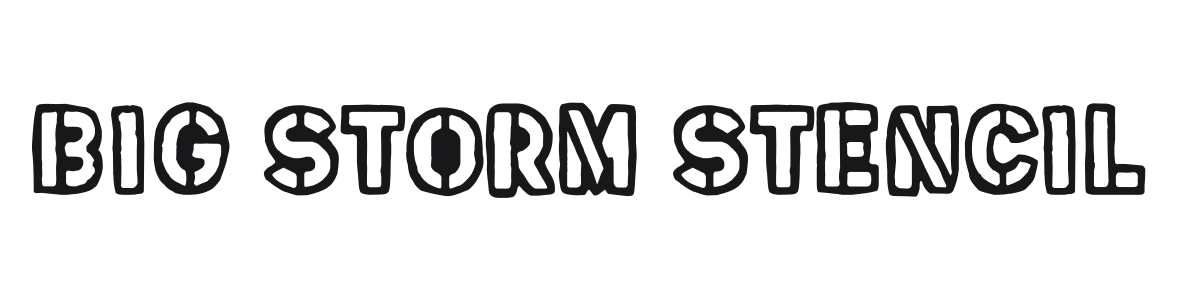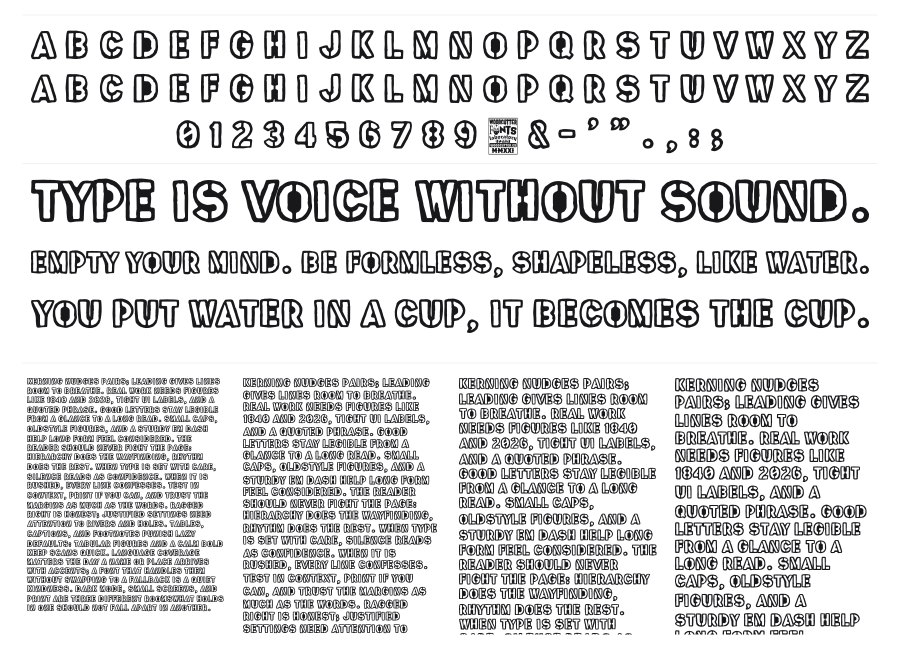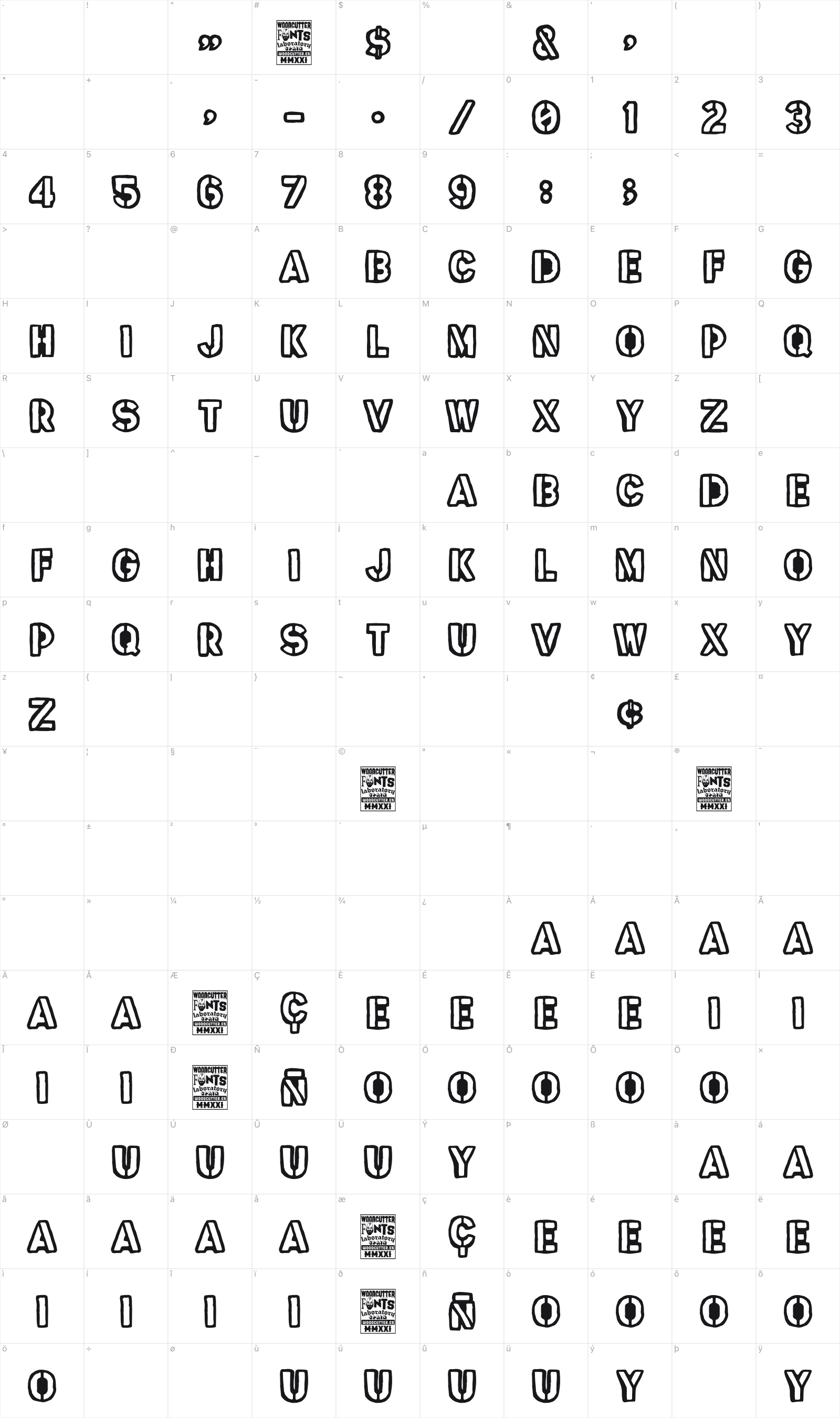
Big Storm Stencil
Big Storm Stencil is a heavy stencil display font by Woodcutter with wide, blocky characters defined by bold outlines and stencil-cut interior shapes. The slightly irregular edges and hand-drawn quality give it a spray-painted, street-art feel rather than a mechanical precision. Strong at large sizes for posters, album covers, and any project that needs raw typographic impact.